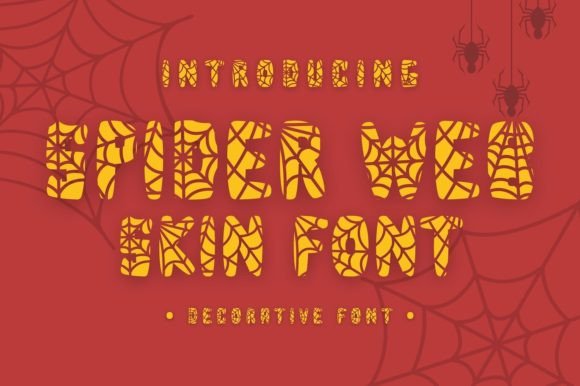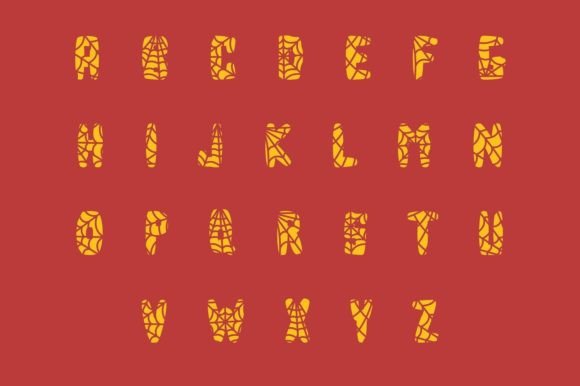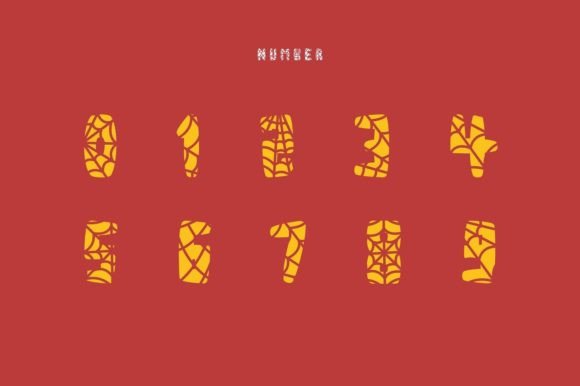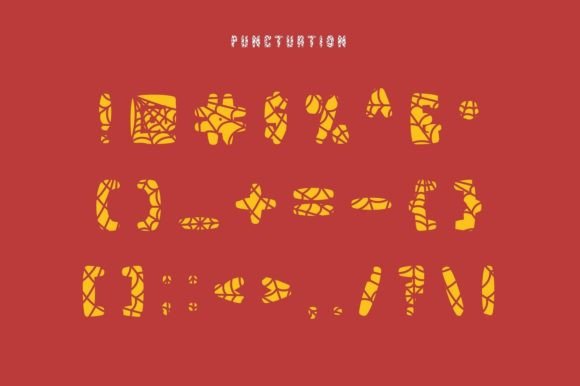
Spider Web Skin Font
About the Spider Web Skin Font
Meet Spider Web Skin Font, a stunning font that brings a touch of elegance and professionalism to any design. Spider Web Skin is a scary and fun decorative font. It embodies playfulness and authenticity and is the perfect choice for all your favorite Halloween projects, or even for blog posts, logos, branding, ads, invitations, greeting cards, planners, photo albums, decorations, and much more. Add it to any of your designs, and enjoy the results!
Spider Web Skin Font Usage Examples
Spider Web Skin Font Example